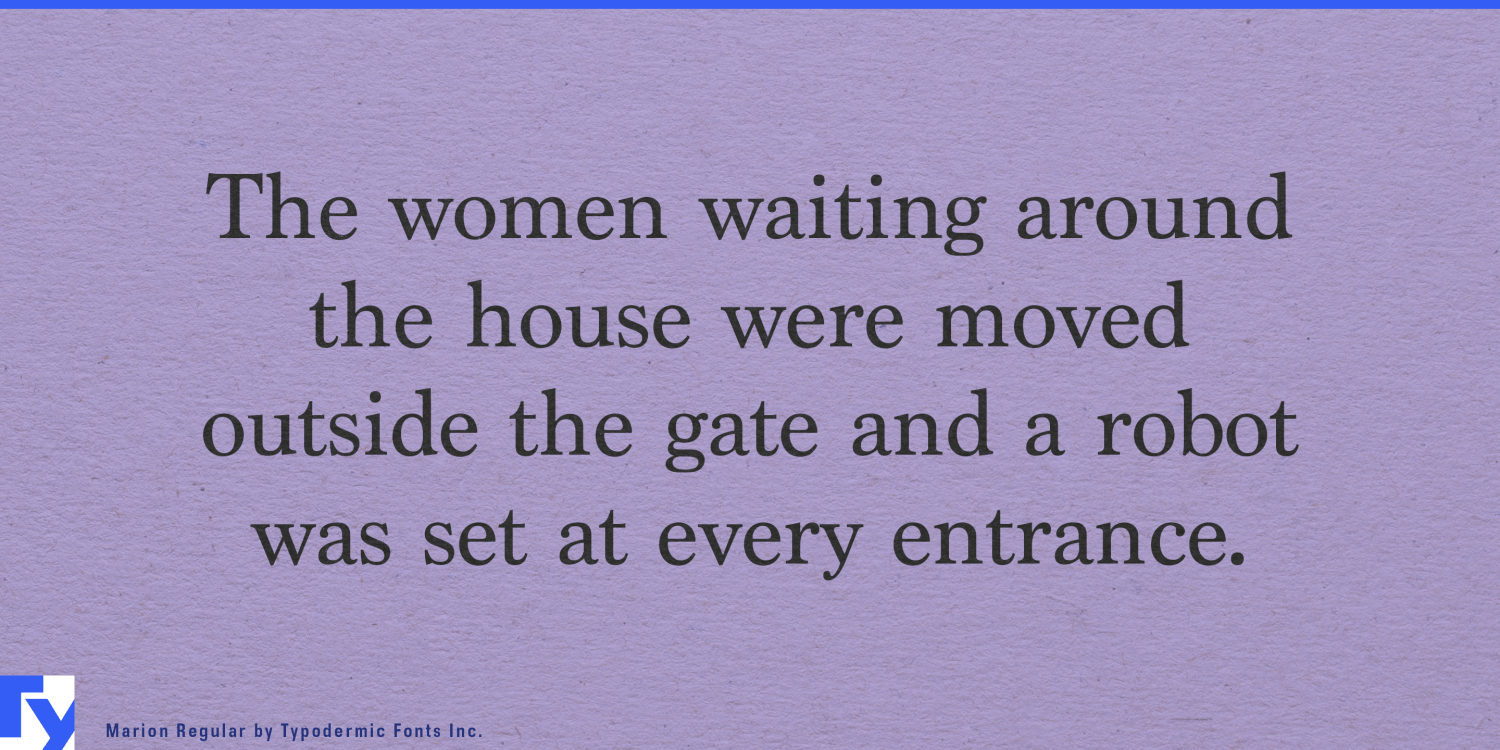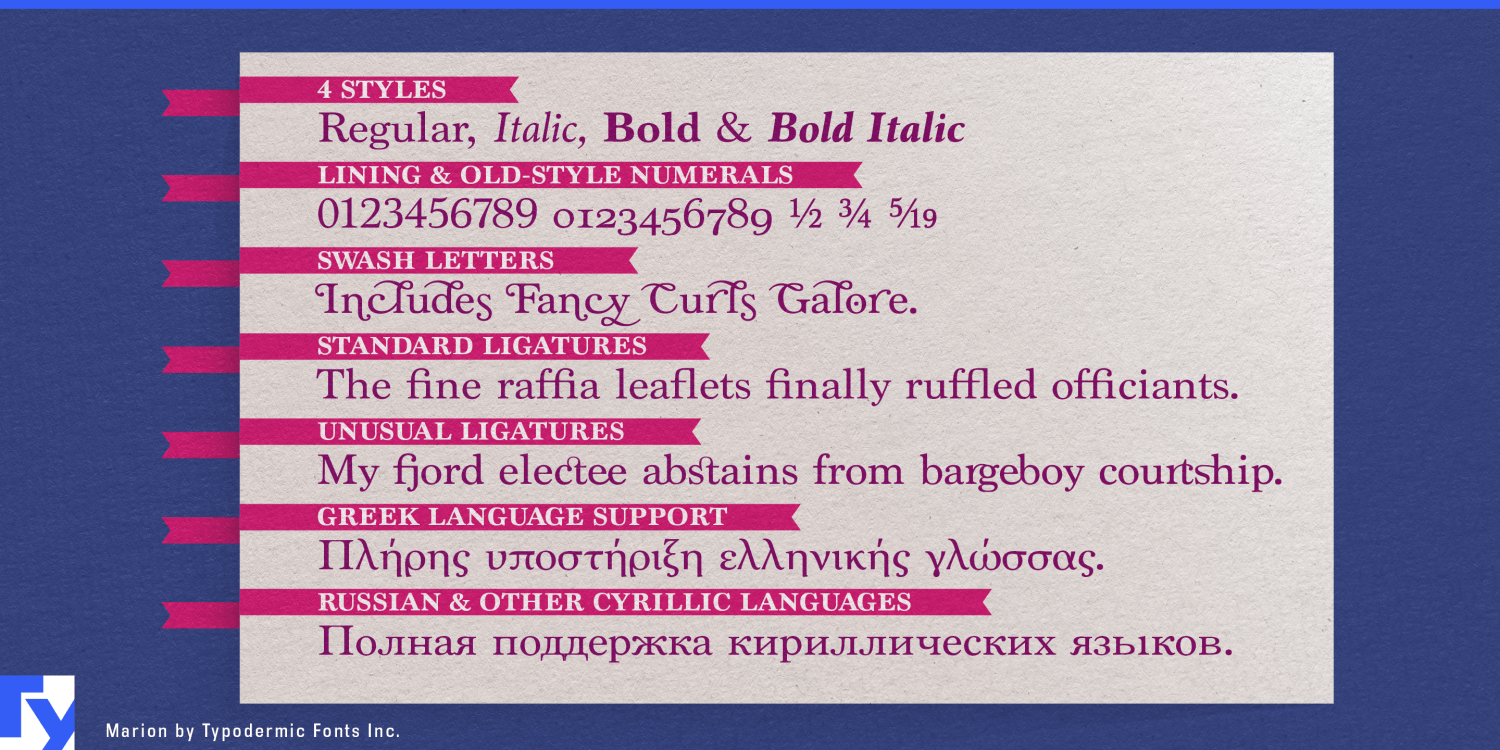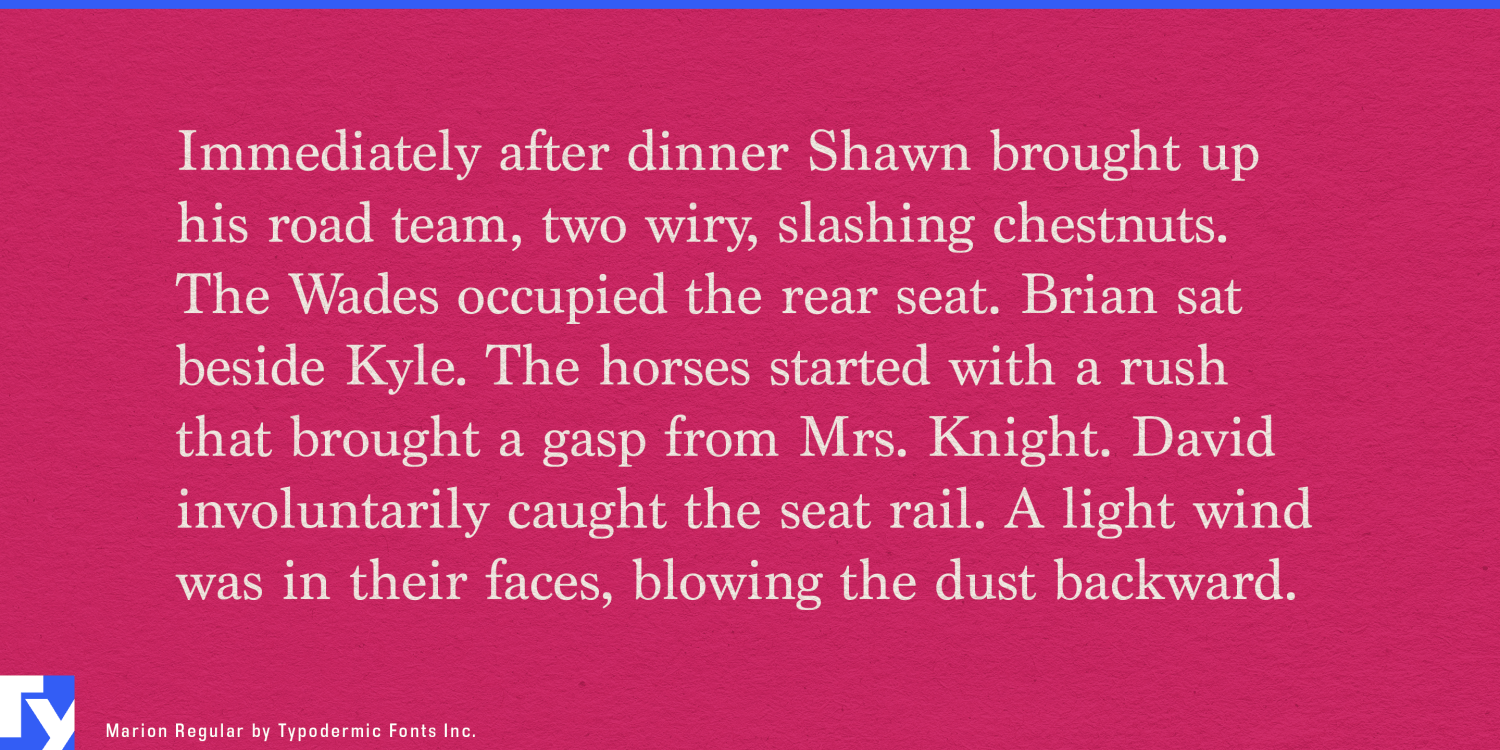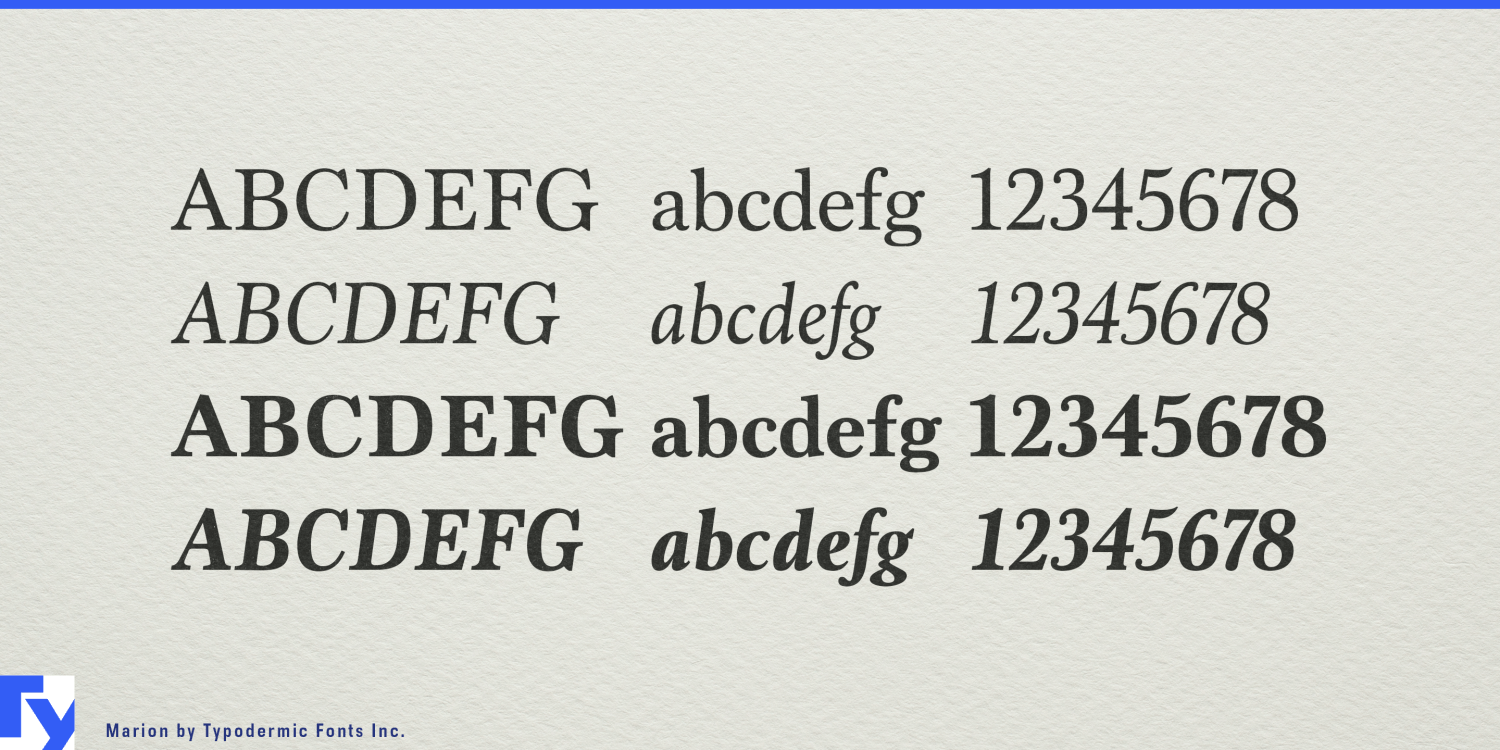
Step into the refined world of Marion, a transitional serif typeface that bridges the gap between centuries with effortless grace. This extraordinary typeface doesn’t merely nod to the past—it orchestrates a typographic symphony that resonates…